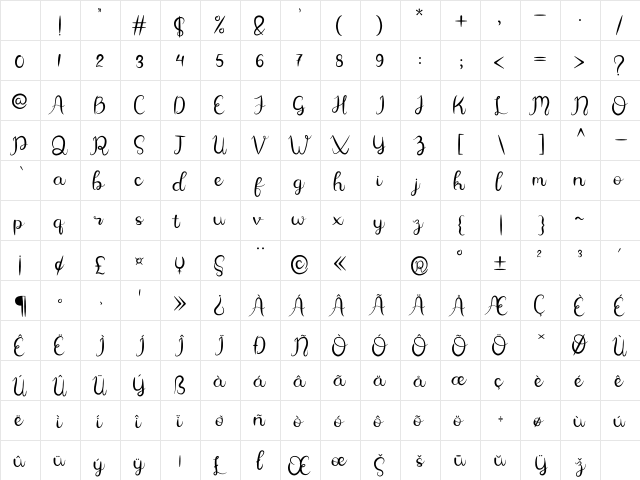
Complete Allamanda Script glyph index. Displaying only characters natively supported by Allamanda Script font.
Allamanda flows with the natural rhythm of handwritten lettering, making it ideal for designs that call for warmth and personal expression.
Font Pairing: Combine Allamanda with a simple geometric sans for maximum contrast - the tension between flowing curves and clean structure is a classic typographic pairing.
Pro Tip: Use Allamanda for short runs of text - names, titles, or taglines. Extended body copy in script faces tires the eye quickly.